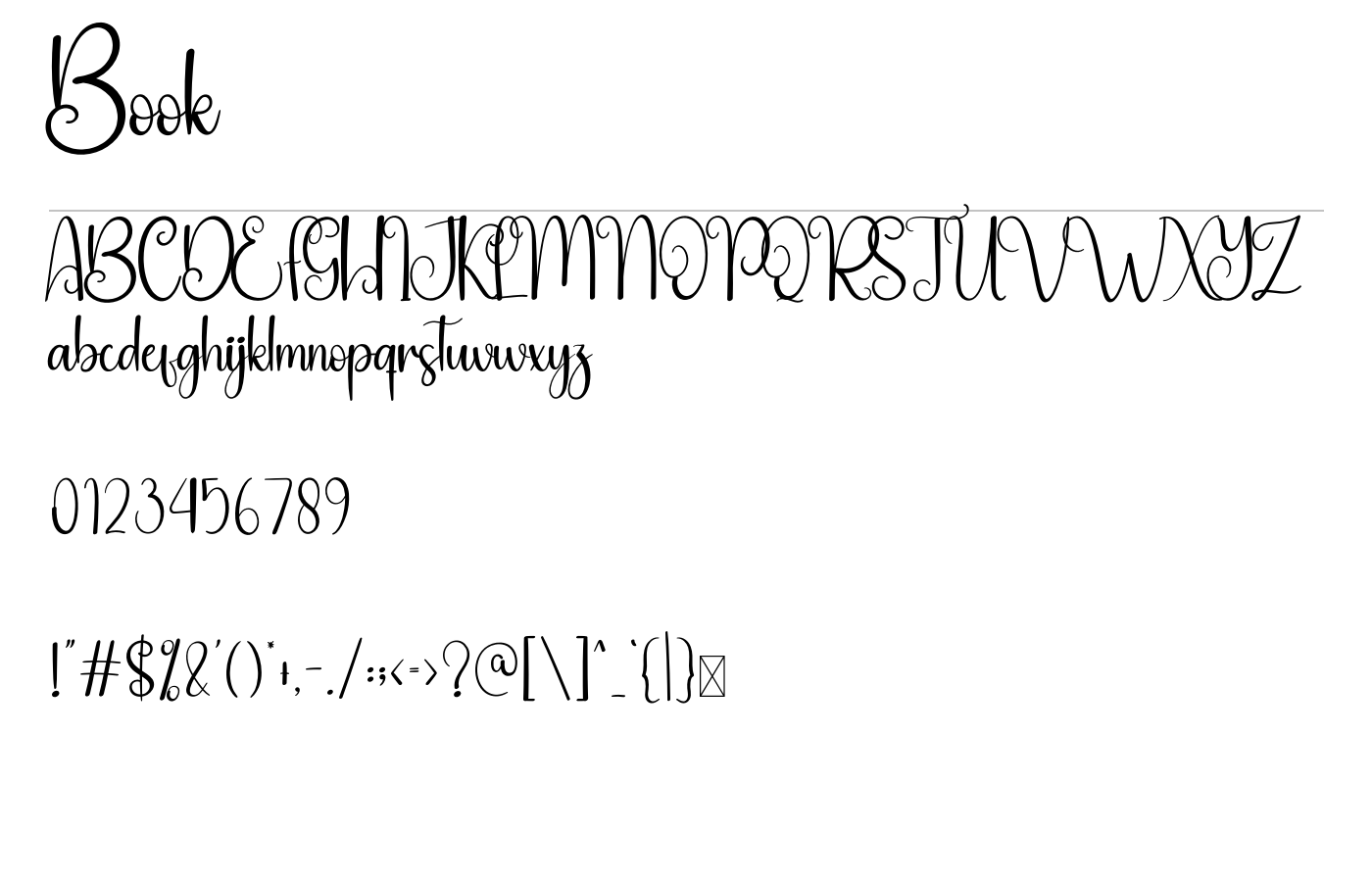
Book Font is a delicate and playful script typeface with slender, elegant strokes and whimsical curls that give it a hand-drawn, artistic feel. Its narrow letterforms and decorative swirls make it ideal for creative projects, invitations, and branding that seek a charming and lighthearted personality. This font shines best in headlines, logos, and design work where a unique, friendly touch is desired.
Book Font
About Book Font